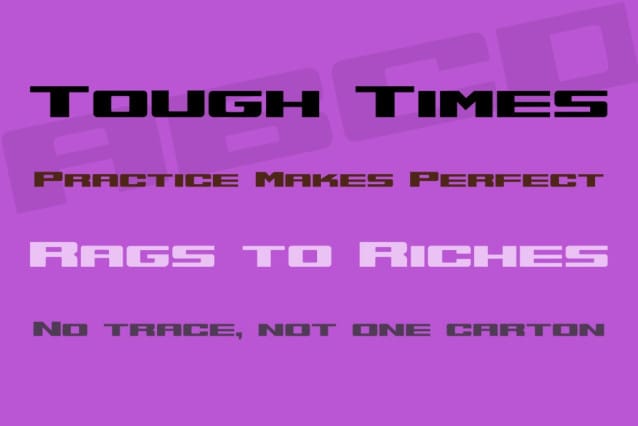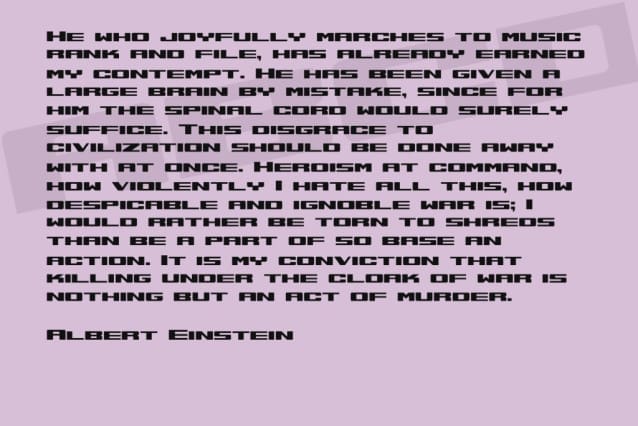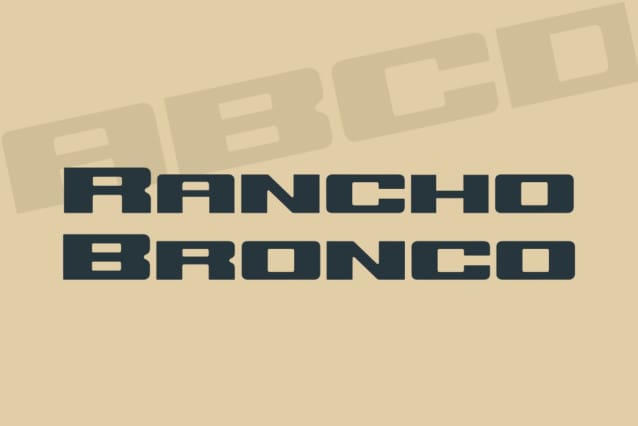
Rancho Bronco Font, It would be a perfect choice to design posters, affiches, logos, t-shirt and magazine prints, eye-pleasing typographic designs and more.
Rancho Bronco Font
| Classification: | Display Fonts, Sans Serif Fonts, Techno / Futuristic Fonts |